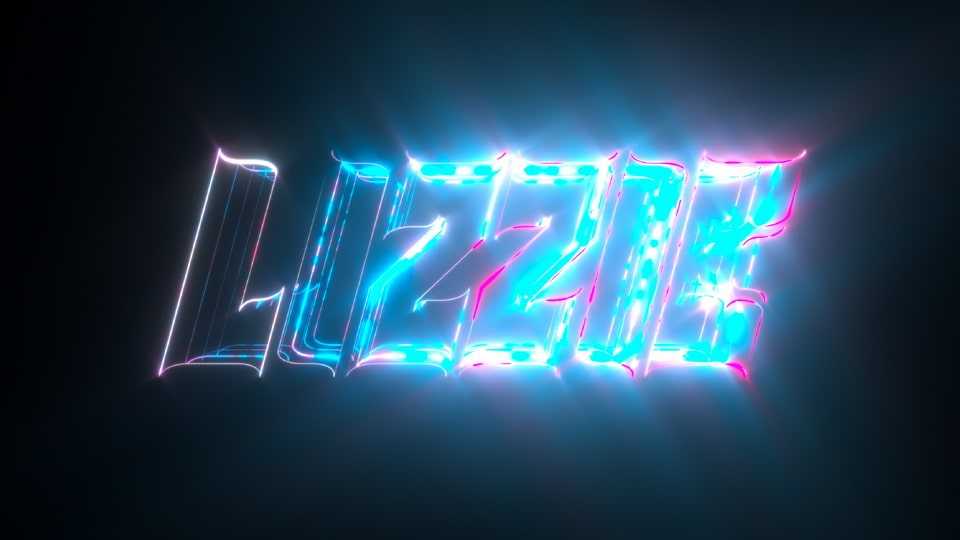
Download Lizzie font, a display typeface inspired by the game Cyberpunk 2077. Lizzie with its thick and sharp letters that are influenced by cyberpunk design.